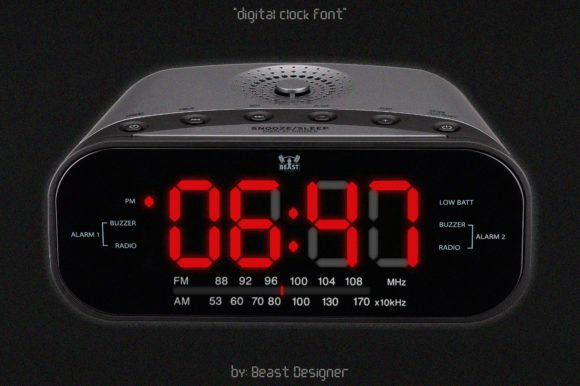
The Perfect Time: A Deep Dive into Digital Clock Font
I still remember the design project that led me to discover the Digital Clock Font. I was working on a modern alarm clock design for a client, and I was struggling to find a font that was both legible and stylish. The client wanted a clean, futuristic look that would appeal to tech-savvy consumers, but I was having trouble finding a font that fit the bill. That was when I stumbled upon the Digital Clock Font, and it changed the game. ✨
What Makes Digital Clock Font Special?
Digital clock font is a typeface designed specifically for use in digital alarm clocks and other timekeeping devices. It is characterized by clear, legible numerals and symbols, and a modern, minimalistic design that is easy to read at a quick glance. Here are some of the things that make it stand out:
- ✅ Clear and Legible: The font features bold, easy-to-read numerals and symbols that are perfect for digital displays.
- ✅ Modern and Minimalistic: The font has a sleek, futuristic design that looks great in modern designs.
- ✅ Highly Versatile: The font can be used in a variety of contexts, from digital alarm clocks to smartwatches and other timekeeping devices.
Honest Review: The Good and the Bad
While I love the Digital Clock Font, it’s not perfect. Here are some of the things I love, and a few quirks to keep in mind:
- ✨ Easy to Read: The font is incredibly legible, even at small sizes.
- ✨ Highly Customizable: The font features a range of OpenType features, glyphs, and stylistic alternates that make it easy to customize.
- ✨ Modern and Fresh: The font has a sleek, modern design that looks great in contemporary designs.
Small Quirks and Limitations:
While the Digital Clock Font is amazing, there are a few things to keep in mind:
- ⚠️ Limited Language Support: The font may not support all languages, so be sure to check the character set before using it.
- ⚠️ May Not Be Suitable for Body Text: While the font is great for headlines and titles, it may not be the best choice for body text.
- ⚠️ Can Be Overused: Like any font, the Digital Clock Font can be overused. Be sure to use it sparingly to avoid overwhelming your design.
The Designer Inspiration Behind Digital Clock Font
The Digital Clock Font was designed with the modern digital landscape in mind. The font’s creator was inspired by the sleek, futuristic designs of digital alarm clocks and smartwatches. The goal was to create a font that was both legible and stylish, with a modern aesthetic that would appeal to designers and non-designers alike.
| Font Name | Digital Clock Font |
| Author | Beast Designer |
Q: What is the Digital Clock Font?
A: The Digital Clock Font is a typeface designed specifically for use in digital alarm clocks and other timekeeping devices.
Q: Can I customize the Digital Clock Font?
A: Yes, the Digital Clock Font features a range of OpenType features, glyphs, and stylistic alternates that make it easy to customize.